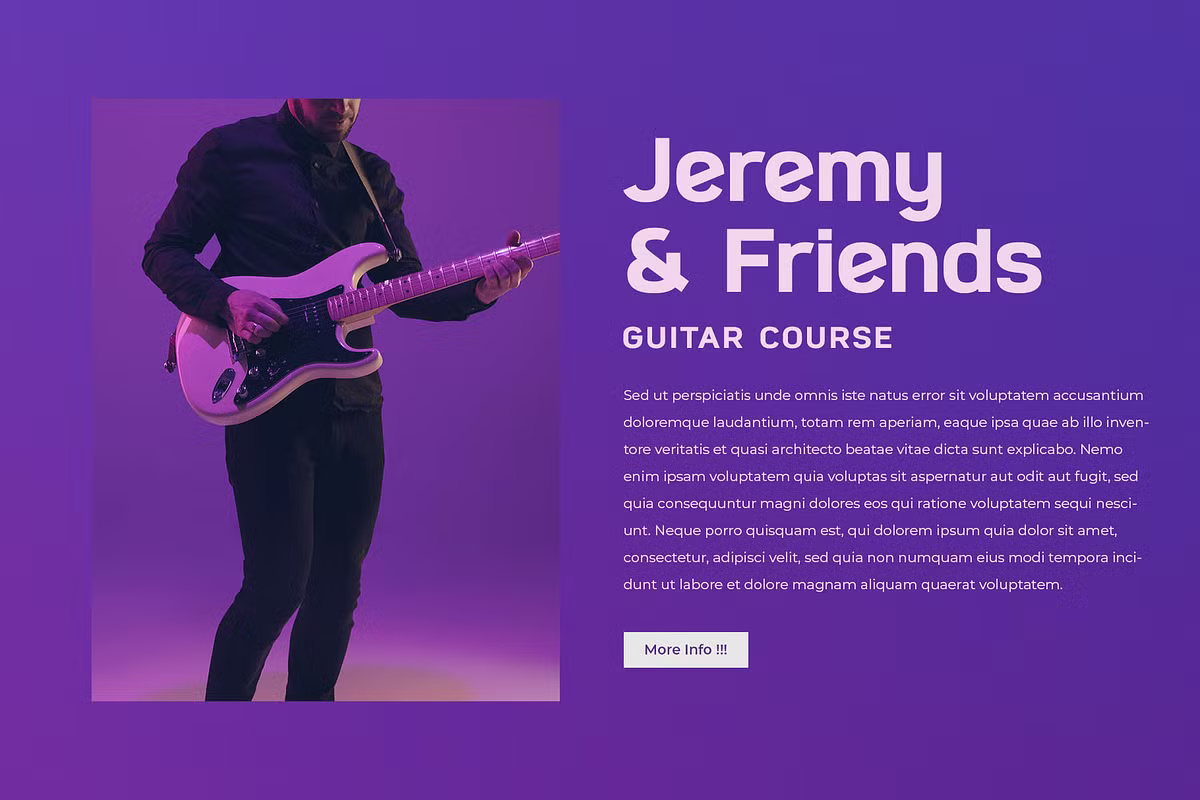
Meligus Font
Meligus is a sleek and modern sans serif display typeface, perfect for use in headlines, logos, branding, magazines, product packaging, and invitations. Its elegant design adds a refined touch to any creative project.